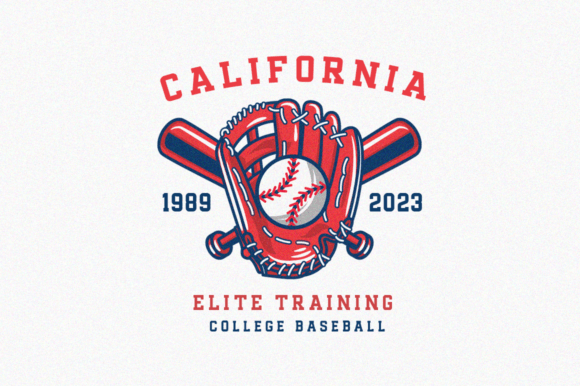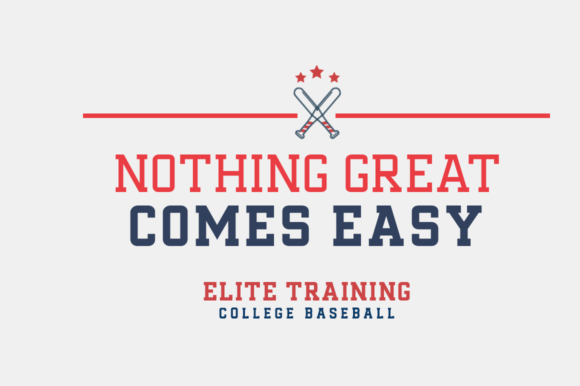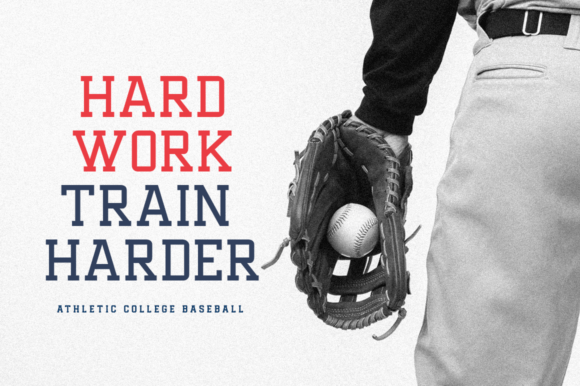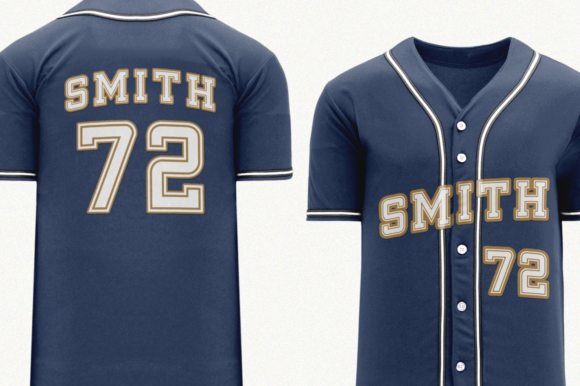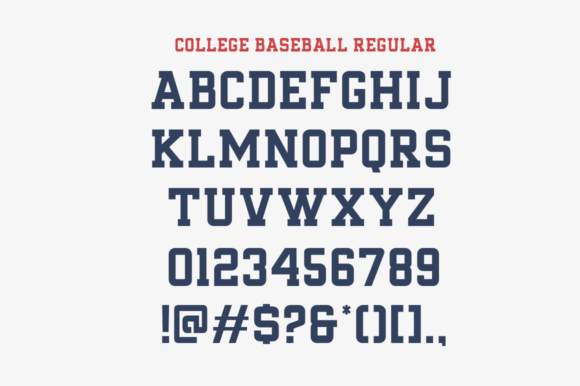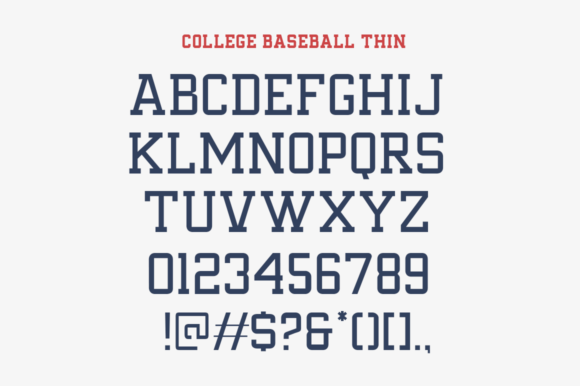
Introducing College Baseball Font: The Ultimate Choice for Sports-Themed Designs
Are you a designer or crafter looking for the perfect font to elevate your sports-themed designs? Look no further than College Baseball Font, a fun, cool, and athletic display font that is sure to impress. With its 3 style variations – regular, thin, and outline – this font is perfect for a wide range of applications, from posters and t-shirts to jerseys, sports logos, and merchandise.
What Makes College Baseball Font So Special?
College Baseball Font is designed to capture the spirit of athleticism and competition, making it the ideal choice for any sports-themed design project. Its bold and dynamic style is sure to grab attention, while its versatility allows it to be used in a variety of contexts. Whether you’re designing a poster for a college baseball game, creating a logo for a sports team, or crafting a t-shirt for a sports enthusiast, College Baseball Font is the perfect choice.
Key Features of College Baseball Font
- 3 Style Variations: Regular, Thin, and Outline – perfect for creating a range of designs, from bold and eye-catching to subtle and sophisticated.
- Athletic and Dynamic: College Baseball Font is designed to capture the energy and excitement of sports, making it perfect for any athletic-themed design.
- High-Quality Design: With its clean lines and precise curves, College Baseball Font is a high-quality font that is sure to elevate any design.
- Versatile: Use College Baseball Font for posters, t-shirts, jerseys, sports logos, merchandise, advertising, and more.
How to Use College Baseball Font in Your Designs
College Baseball Font is easy to use and can be incorporated into a wide range of designs. Here are a few ideas to get you started:
- Posters: Use College Baseball Font to create eye-catching posters for college baseball games, sports events, and tournaments.
- T-Shirts and Jerseys: Add a sporty touch to your t-shirt and jersey designs with College Baseball Font.
- Sports Logos: Create professional-looking sports logos with College Baseball Font.
- Merchandise: Use College Baseball Font to create a range of merchandise, from water bottles to phone cases.
Benefits of Using College Baseball Font
By using College Baseball Font in your designs, you’ll enjoy a range of benefits, including:
- Increased Visibility: College Baseball Font is designed to grab attention, making it perfect for posters, billboards, and other eye-catching designs.
- Enhanced Professionalism: With its high-quality design and athletic style, College Baseball Font can help elevate your designs and give them a professional look.
- Versatility: College Baseball Font can be used in a wide range of contexts, making it a versatile addition to your design toolkit.
| Font Name | College Baseball Font |
| Author | Pentype Studio |
College Baseball Font is the ultimate choice for designers and crafters looking to create sports-themed designs that are fun, cool, and athletic. With its 3 style variations, high-quality design, and versatility, this font is perfect for a wide range of applications. Whether you’re designing posters, t-shirts, jerseys, sports logos, or merchandise, College Baseball Font is sure to elevate your designs and help you achieve your creative vision.